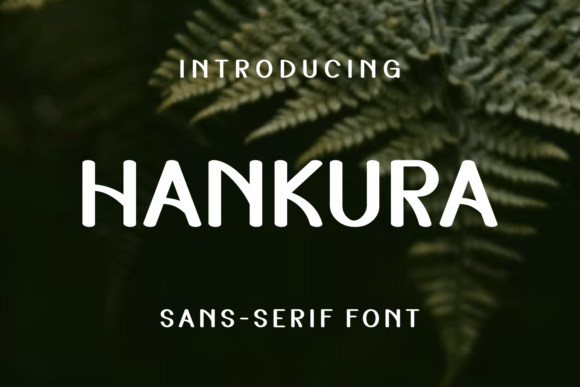
Journey into Innovation with Hankura Font: The Epitome of Corporate Professionalism
Prepare to be enthralled by Hankura Font, a sans-serif typeface that exudes professionalism and sophistication. Created by the visionary font artist lelevien, Hankura is not your average font; it's a masterpiece meticulously crafted to elevate your corporate communications to new heights.
Designed with precision and elegance, Hankura Font features clean lines, crisp edges, and perfectly balanced letterforms. Its timeless style lends an air of authority and credibility to your documents, presentations, and marketing materials. Say goodbye to dull and uninspired fonts and embrace the power of Hankura to make a lasting impression.
With Hankura Font, you can effortlessly convey your company's values and messages. Its versatile character set allows you to convey complex ideas with clarity and impact. Engage your audience with visually appealing reports, proposals, and brochures that speak volumes about your professionalism.
Unleash your creativity and let Hankura Font transform your mundane designs into captivating masterpieces. Create logos, website headers, infographics, and social media graphics that radiate confidence and professionalism. Watch as your brand recognition soars to new heights with the help of this remarkable font.
Make a bold statement with Hankura Font and leave a lasting legacy. Its timeless beauty and modern aesthetic will ensure that your company's image remains at the forefront of innovation and quality.